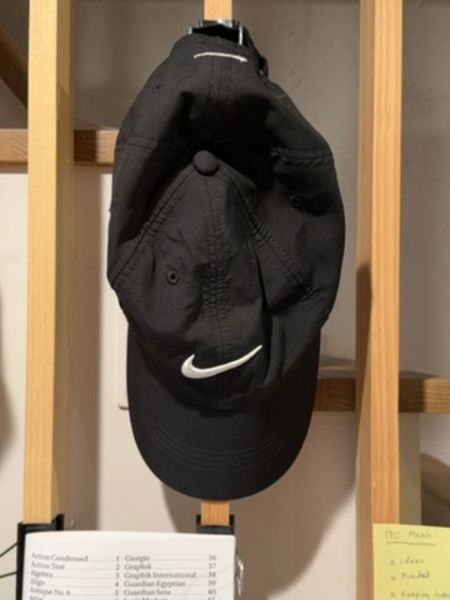
Nike Cap
A sports cap designed for casual and athletic use, providing sun protection and style.
The typography is minimalistic, with a focus on the iconic Swoosh logo. The logo embodies movement and speed, characteristic of the brand’s athletic focus. The simplicity and boldness are consistent with modern, sans-serif font styles.
- Features the iconic Nike Swoosh logo.